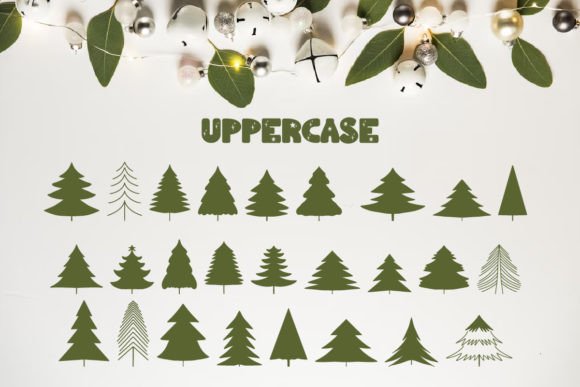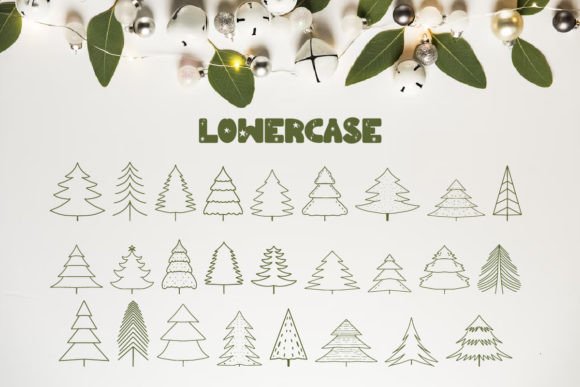
Introduction to Seprus Font
Seprus is a collection of christmas tree decorations that works amazing for all your Christmas related designs.
Seprus is a collection of christmas tree decorations that works amazing for all your Christmas related designs!
Key Features of Seprus Font